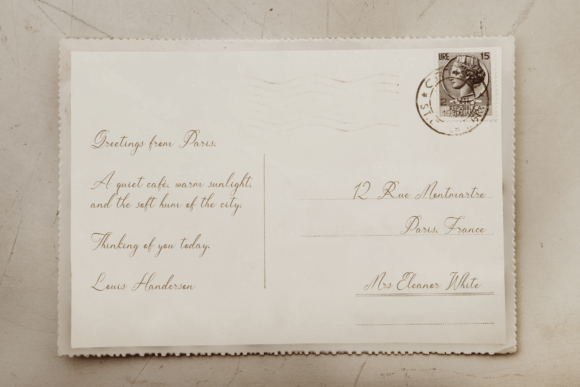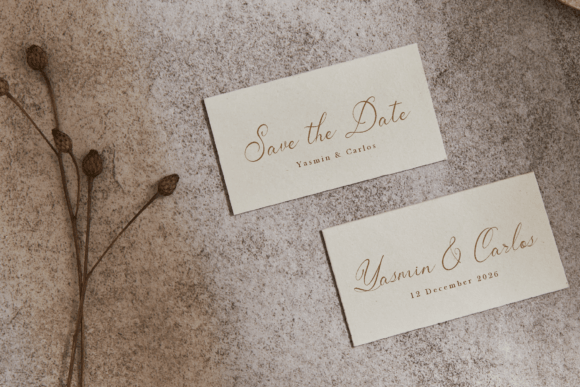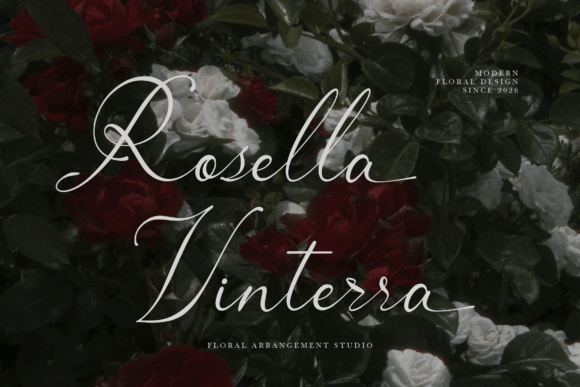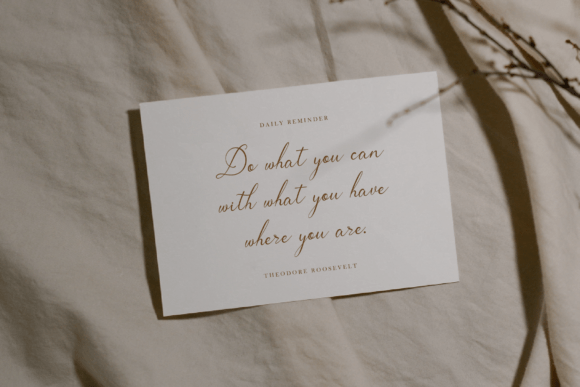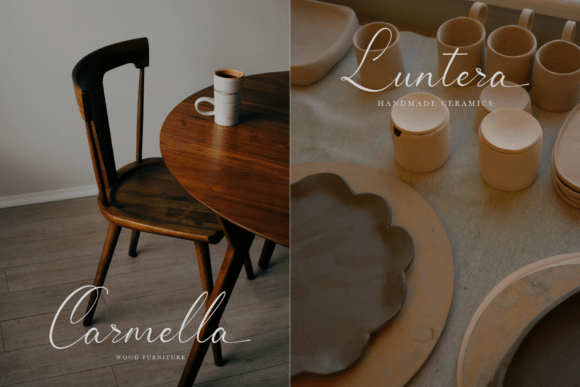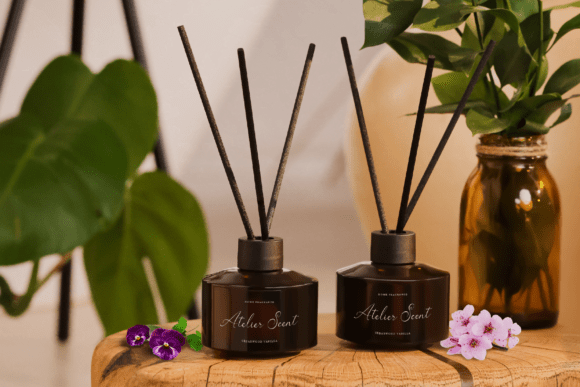
Claris Fleur: Timeless Elegance and Vintage Grace
Are you looking for a font that can transport your designs back to an era of hand-penned letters and romantic gestures? Look no further than Claris Fleur, a handwritten vintage script that exudes elegance and sophistication. In this article, we’ll explore the beauty of Claris Fleur and how it can elevate your designs, whether you’re a designer, crafter, or business owner.
The Charm of Claris Fleur
Claris Fleur is a beautifully crafted script font that captures the essence of traditional handwriting. Its flowing lines, delicate curves, and intricate details evoke a sense of nostalgia and romance, making it perfect for designs that require a touch of vintage charm. Whether you’re creating invitations, thank-you notes, or place cards, Claris Fleur adds a level of sophistication and elegance that’s hard to find in modern fonts.
Ideal for Creative Businesses
Claris Fleur is an excellent choice for businesses that want to convey a sense of heritage and tradition. Florists, antique boutiques, artisanal bakeries, and heritage brands will love the timeless elegance and vintage grace that this font brings to their designs. With Claris Fleur, you can create a professional and polished brand identity that stands out from the crowd.
Design Applications
So, how can you use Claris Fleur in your designs? The possibilities are endless! Here are a few ideas to get you started:
- Invitations: Create breathtaking invitations for weddings, parties, and other special events with Claris Fleur. The font’s romantic and elegant vibe sets the tone for a memorable occasion.
- Thank-you notes: Express your gratitude with beautifully designed thank-you notes that feature Claris Fleur. The font’s vintage charm adds a touch of warmth and sincerity to your message.
- Place cards: Add a touch of elegance to your table settings with place cards designed using Claris Fleur. The font’s intricate details and flowing lines create a beautiful and sophisticated look.
- Branding: Use Claris Fleur to create a brand identity that reflects your business’s heritage and tradition. The font’s timeless elegance and vintage charm make it perfect for businesses that want to stand out from the crowd.
Why Choose Claris Fleur?
So, why should you choose Claris Fleur over other fonts? Here are a few reasons:
- Unique and distinctive: Claris Fleur is a one-of-a-kind font that stands out from the crowd. Its intricate details and flowing lines create a beautiful and sophisticated look that’s hard to find in modern fonts.
- Timeless elegance: Claris Fleur exudes timeless elegance and vintage charm, making it perfect for designs that require a touch of sophistication and refinement.
- Professional and polished: Despite its vintage charm, Claris Fleur is a professional and polished font that’s suitable for businesses and designers who want to create a high-end brand identity.
- Easy to use: Claris Fleur is easy to use and can be applied to a variety of design applications, from invitations and thank-you notes to branding and advertising.
Tips for Using Claris Fleur
Here are a few tips for using Claris Fleur in your designs:
- Pair with complementary fonts: Pair Claris Fleur with complementary fonts to create a beautiful and harmonious design. Choose fonts that complement the script’s flowing lines and delicate curves.
- Use high-quality images: Use high-quality images and graphics to showcase Claris Fleur in your designs. The font’s intricate details and flowing lines look best when paired with high-quality visuals.
- Experiment with colors: Experiment with different colors and textures to add depth and interest to your designs. Claris Fleur looks beautiful in a variety of colors, from soft pastels to rich jewel tones.
Claris Fleur is a beautiful and elegant script font that’s perfect for designers, crafters, and businesses who want to add a touch of vintage charm to their designs. With its timeless elegance and sophisticated vibe, Claris Fleur is ideal for creating breathtaking invitations, thank-you notes, and place cards. Whether you’re crafting a brand for an artisanal shop or designing for a once-in-a-lifetime event, Claris Fleur offers a professional, polished presence with a nostalgic heart.